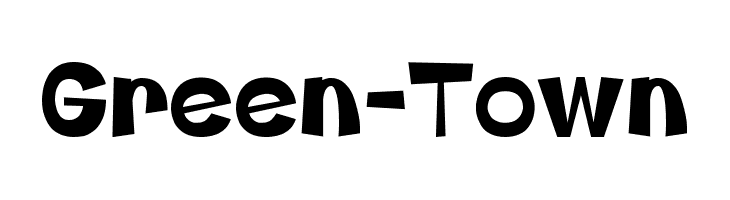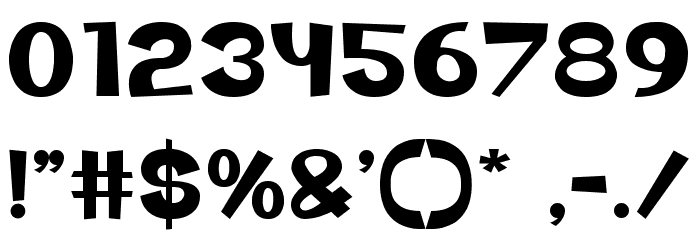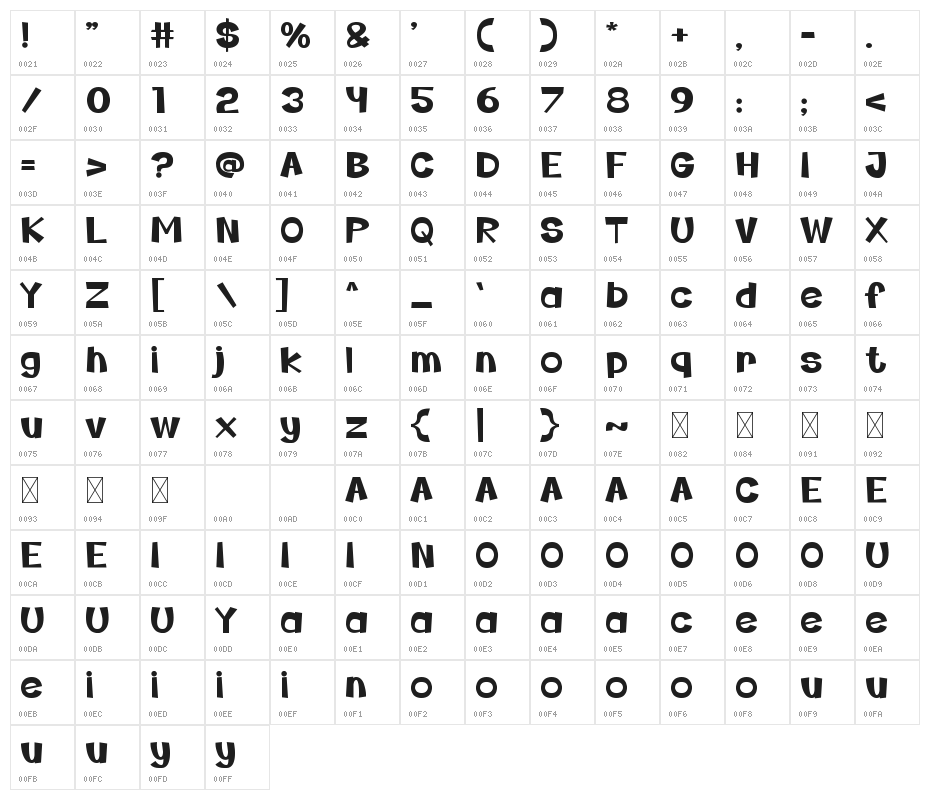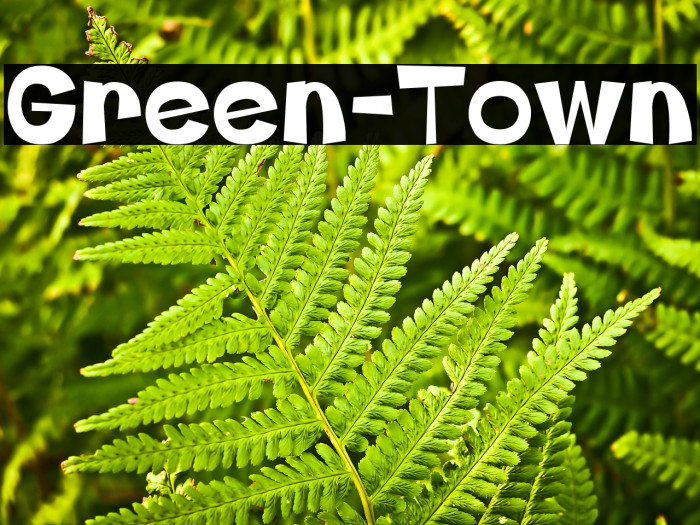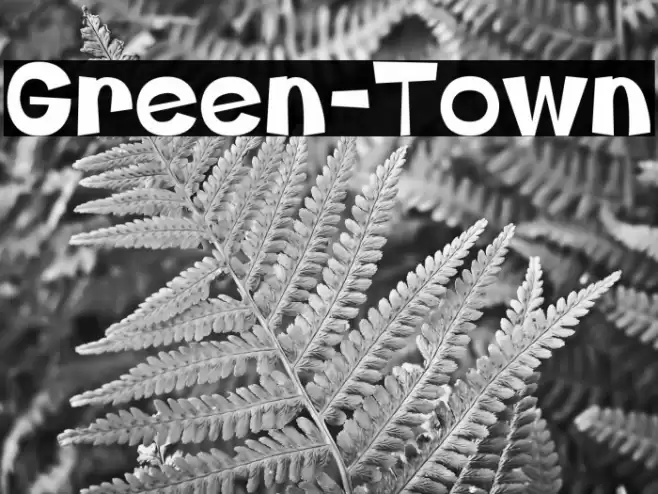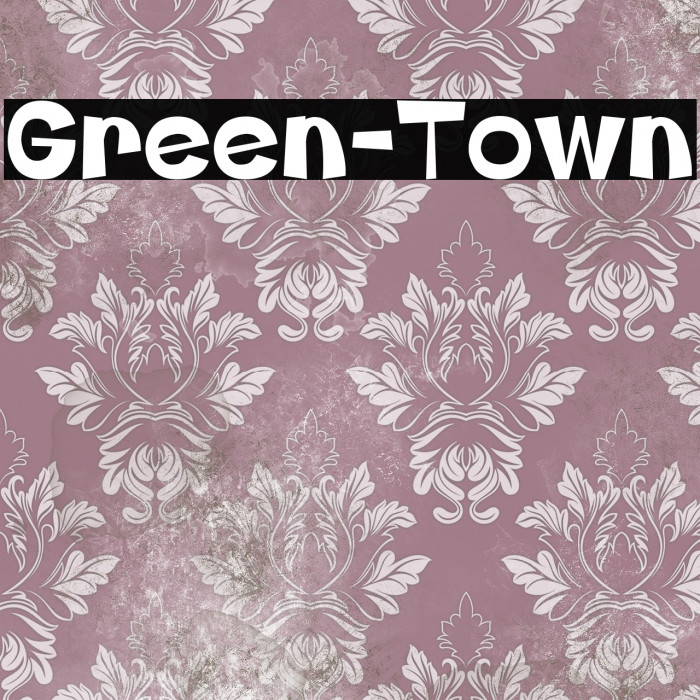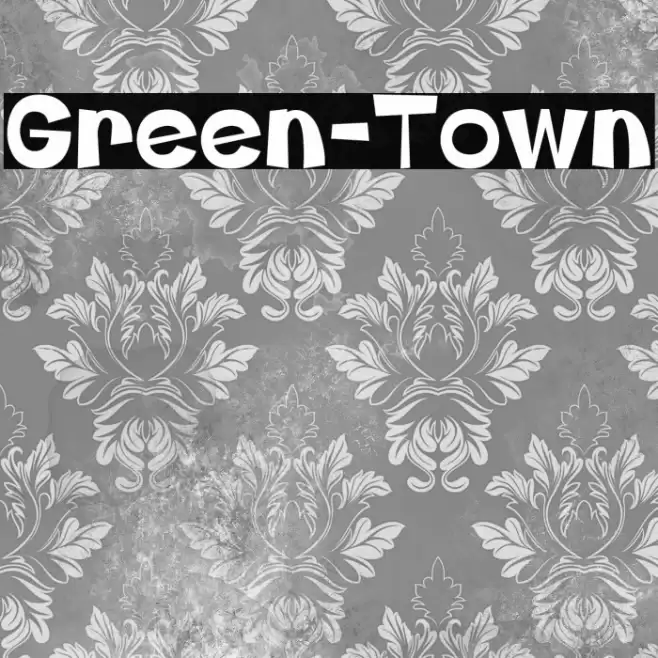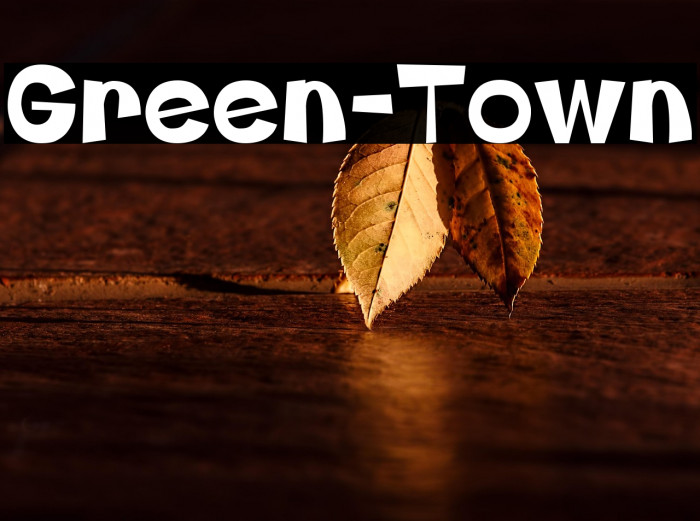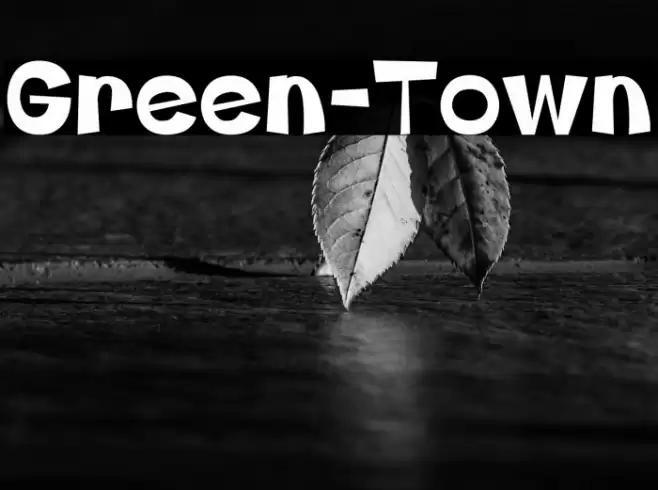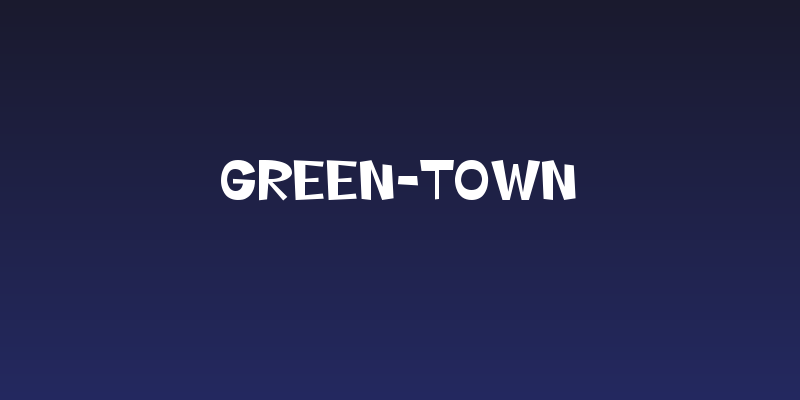
Green-Town Font
Green-Town Description
This font features a playful and quirky design with bold, uneven strokes that give it a lively and energetic appearance. The characters are slightly irregular, adding a whimsical touch to the overall style. The uppercase letters are bold and prominent, while the lowercase letters maintain a consistent playful theme. Numbers and special characters follow the same design ethos, ensuring a cohesive look across all elements. The font's unique style makes it stand out, perfect for projects that require a fun and engaging visual element.
| Overall Style | Playful, Quirky, Energetic |
| Proposed Projects | Ideal for children's books, playful branding, party invitations, and creative posters. |